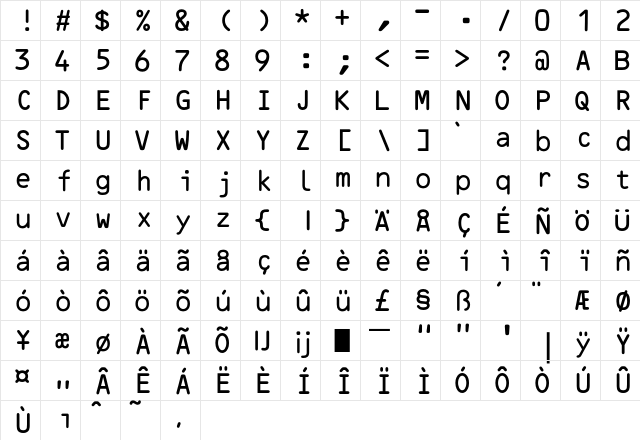
OCR B BQ Regular
Design Context for OCR B BQ Typeface
OCR B BQ is a composed and adaptable typeface that performs quietly and consistently across a wide range of design contexts.